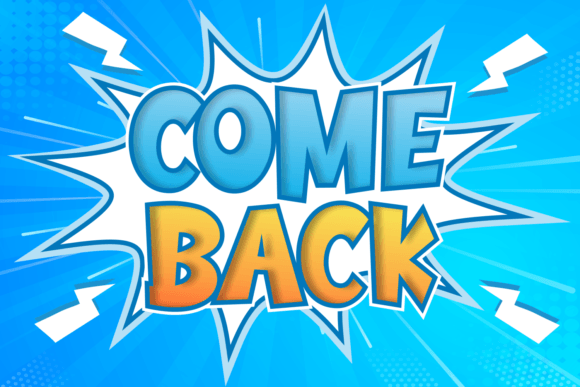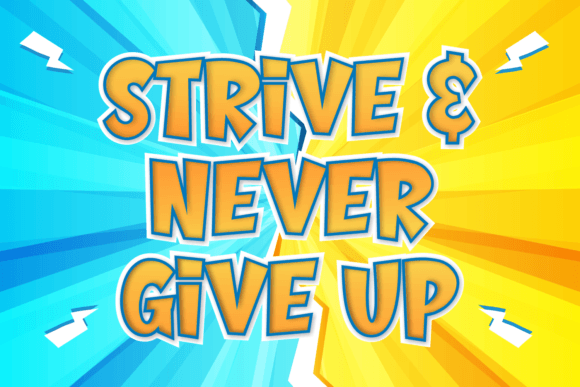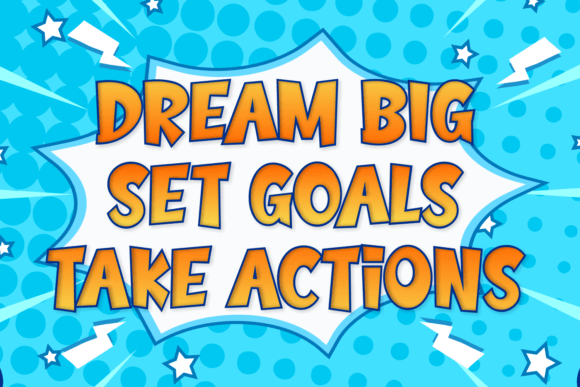
The Ultimate Guide to Dodo Boss Font: Adding a Touch of Whimsy to Your Designs
I’ll never forget the time I was working on a project for a children’s book and I just couldn’t find the right font. The client wanted something playful, fun, and engaging, but everything I tried seemed either too boring or too over-the-top. That’s when I stumbled upon Dodo Boss Font, and let me tell you, it was love at first sight! 💕
In this article, we’ll dive into the world of Dodo Boss Font, exploring its features, how to use it, and what makes it so special. Whether you’re a designer, crafter, or creative hobbyist, you’ll learn how to add a touch of charm and playfulness to your typography designs with this cheerful font inspired by cartoons and comic books.
An Honest Review of Dodo Boss Font
What I Love About Dodo Boss Font ✨
- Its playful and fun personality, perfect for projects that need a touch of whimsy 🎉
- The wide range of OpenType features, including glyphs and stylistic alternates, that allow for endless creativity 🌈
- Its versatility – use it for posters, cards, websites, apparel, headlines, titles, advertisements, book covers, signage, and more 📚
- The font’s ability to evoke a sense of nostalgia and childhood wonder, making it perfect for projects targeting a younger audience 👧
While Dodo Boss Font is an amazing addition to any design project, there are a few things to keep in mind:
- Some of the more intricate glyphs and stylistic alternates may not display properly on all devices or platforms 🤔
- The font’s playful nature may not be suitable for more formal or professional projects 📊
The Backstory of Dodo Boss Font
Dodo Boss Font was created by a team of designers who wanted to bring a touch of childhood wonder to the world of typography. Inspired by cartoons and comic books, they crafted a font that would evoke a sense of nostalgia and playfulness. The result is a font that’s perfect for projects that need a touch of whimsy and personality.
Q: What is Dodo Boss Font?
A: Dodo Boss Font is a fun and playful display font inspired by cartoons and comic books.
Q: What can I use Dodo Boss Font for?
A: You can use Dodo Boss Font for posters, cards, websites, apparel, headlines, titles, advertisements, book covers, signage, and more.
Q: Is Dodo Boss Font suitable for formal projects?
A: No, Dodo Boss Font’s playful nature makes it more suitable for informal projects that need a touch of whimsy.